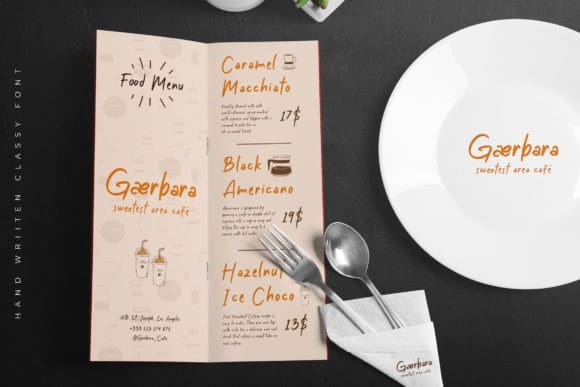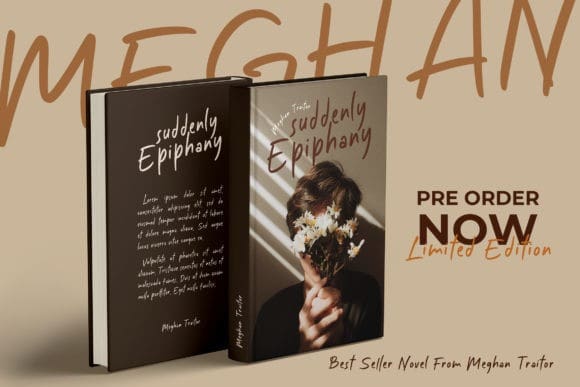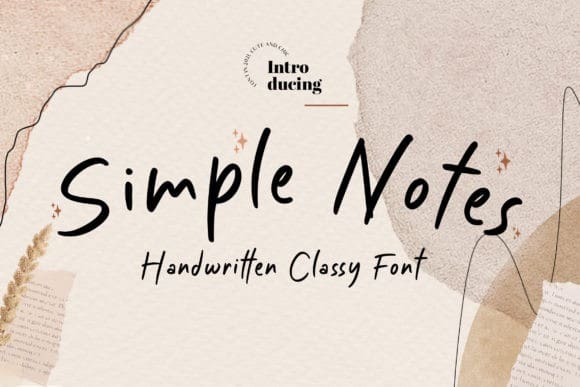
Simple Notes Font
Simple Notes Font is a thin, delicate and natural script font, that can be used for all chalkboard quotes or teaching material! Its authentic look and feel will add a personal and realistic feel to your designs.